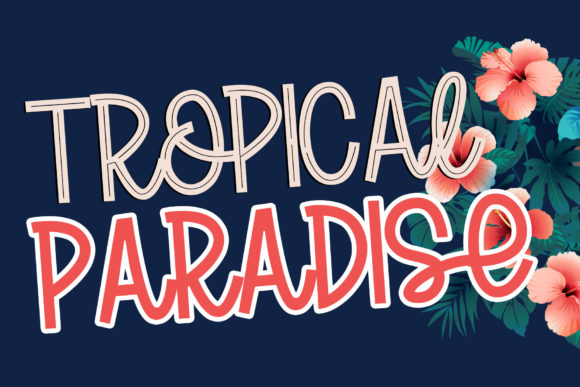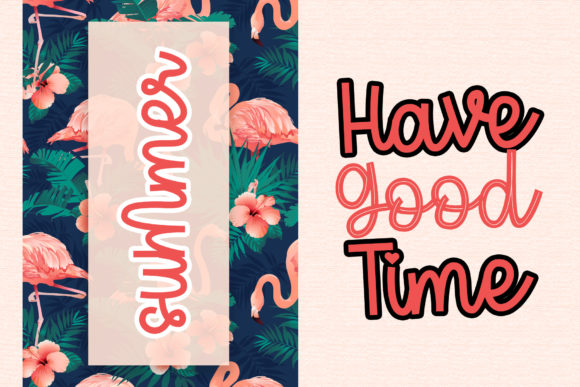
Aloha March Font
db-ku.com - Script & Handwritten -- Aloha March is an eye-catching font carefully handcrafted to become a true favorite. Whether it’s for web, print, moving images or anything else – Aloha March will look spectacular.